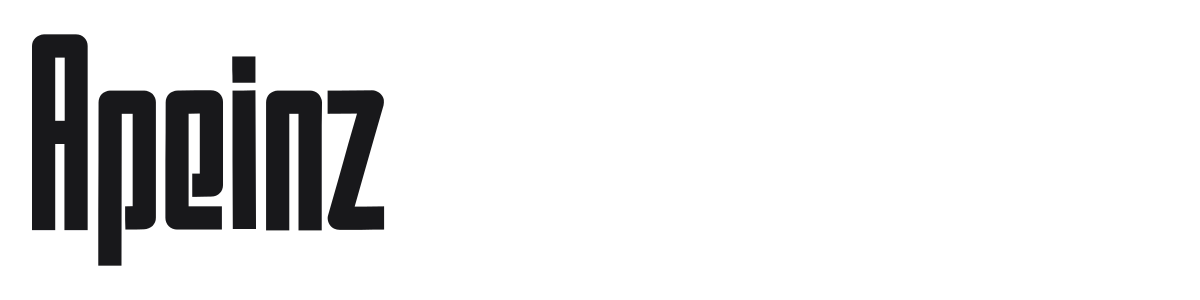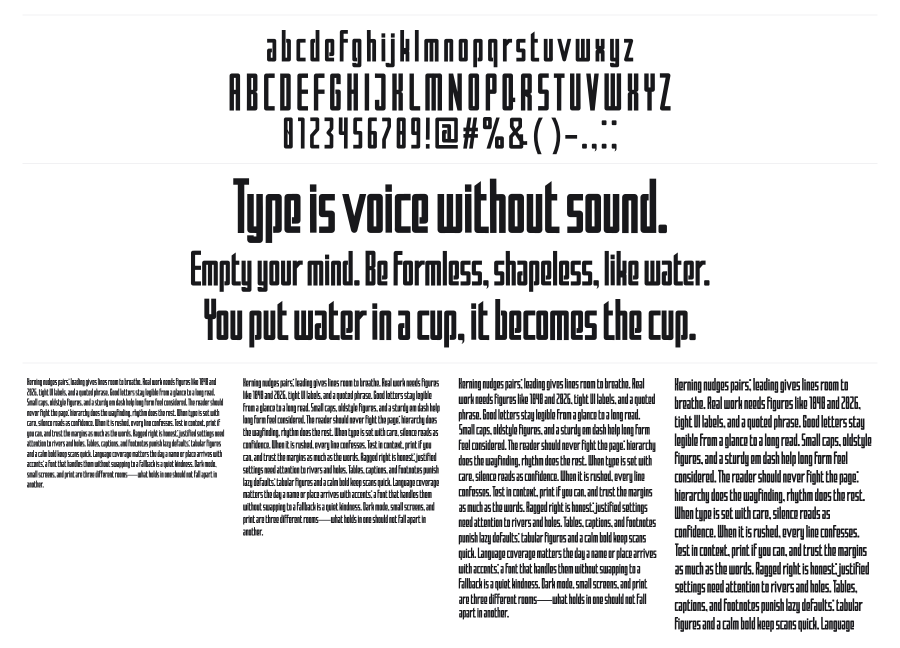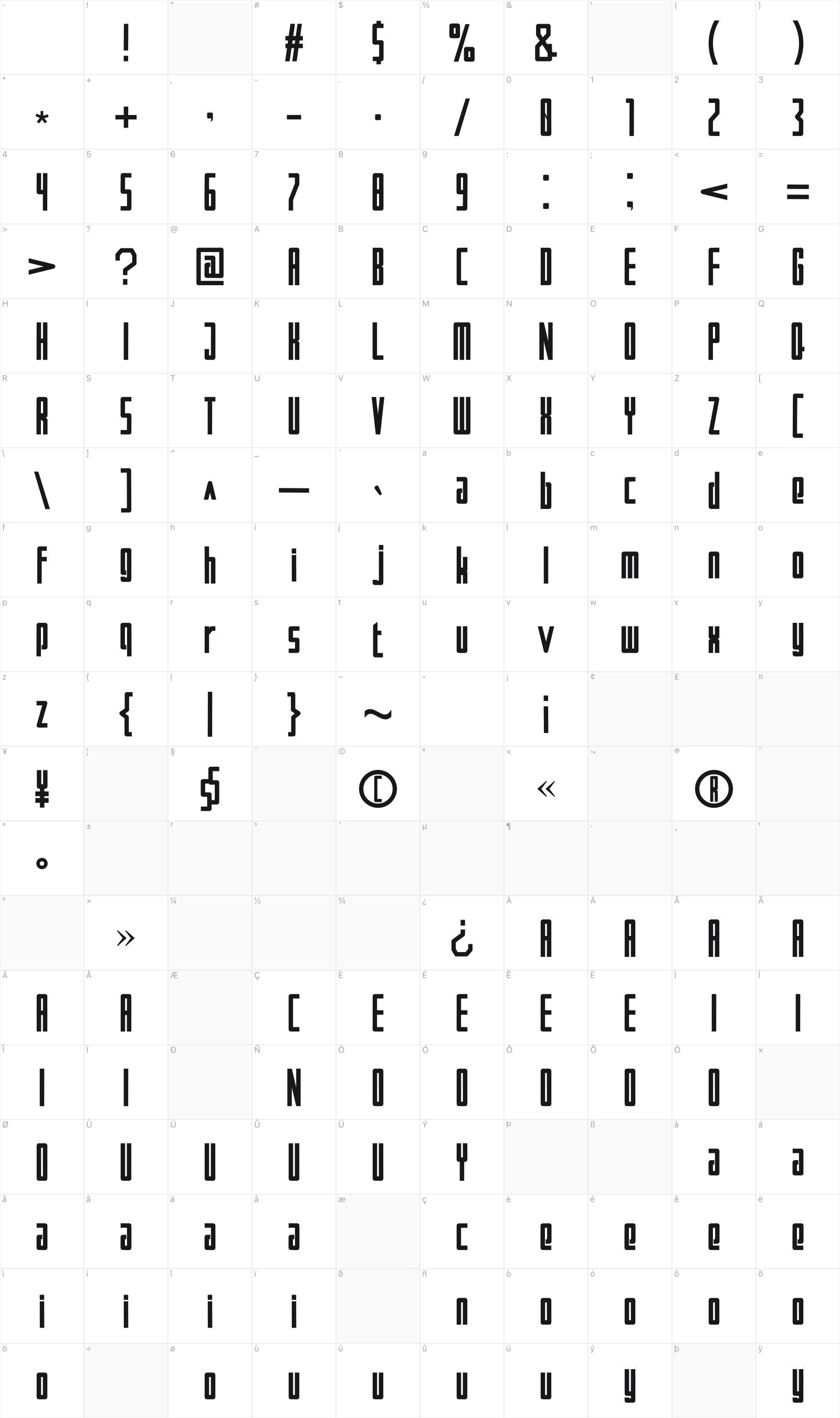
Apeinz
ApeinzLicense is a ultra-condensed heavy grotesque built for maximum impact at large sizes. The squared terminals and compressed proportions give it a raw, industrial edge that works well in streetwear, sports, and entertainment contexts. Characters are packed tightly with minimal open counters, producing a dense typographic texture in headlines and logos.